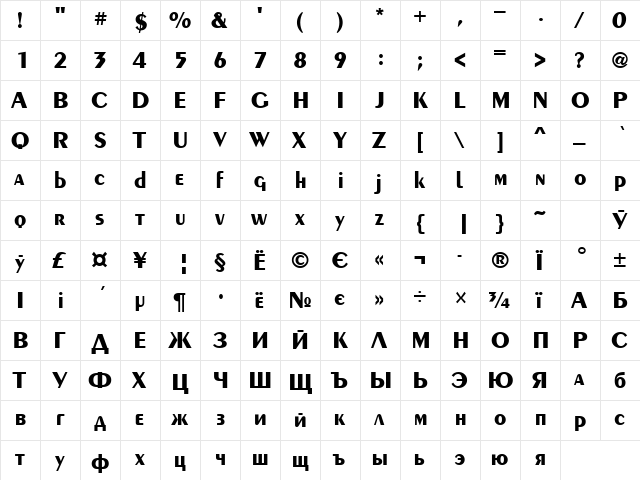
PentaBold Normal Font Preview
PentaBold Normal
Design Context for PentaBold Typeface
PentaBold offers clean, dependable letterforms without strong stylistic allegiance, making it a practical choice for designers who need flexibility. The heavy weight commands attention and anchors typographic hierarchies.